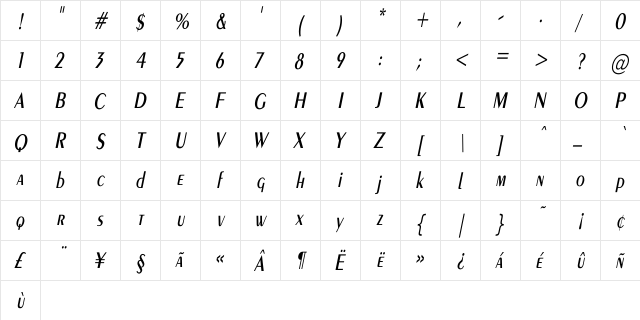
Exotic-Demi Cn Itlc Italic Font Preview
Exotic-Demi Cn Itlc Italic
Design Context for Exotic-Demi Cn Itlc Typeface
Exotic-Demi Cn Itlc takes a measured approach to typography — its balanced proportions and neutral character make it a reliable workhorse for both digital and print work. The dynamic lean of this cut emphasises speed and emphasis in any layout.
Pro Tip: Try Exotic-Demi Cn Itlc for annotation and caption copy alongside an upright companion — the contrast in angle creates a dynamic but ordered typographic system.